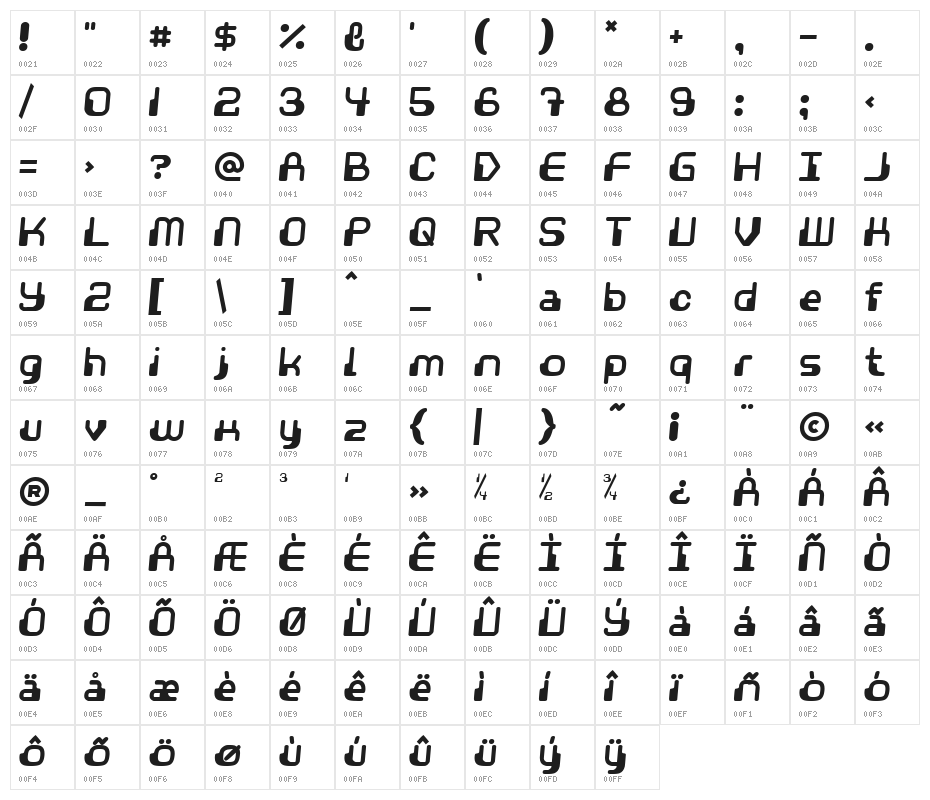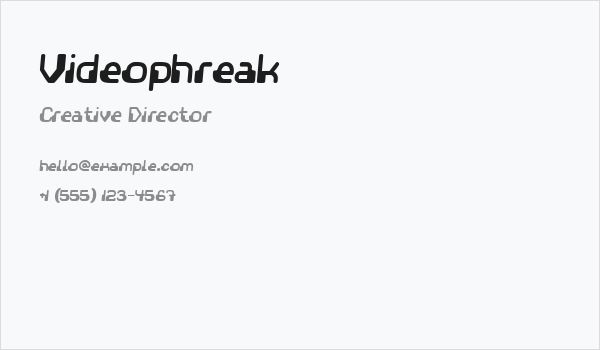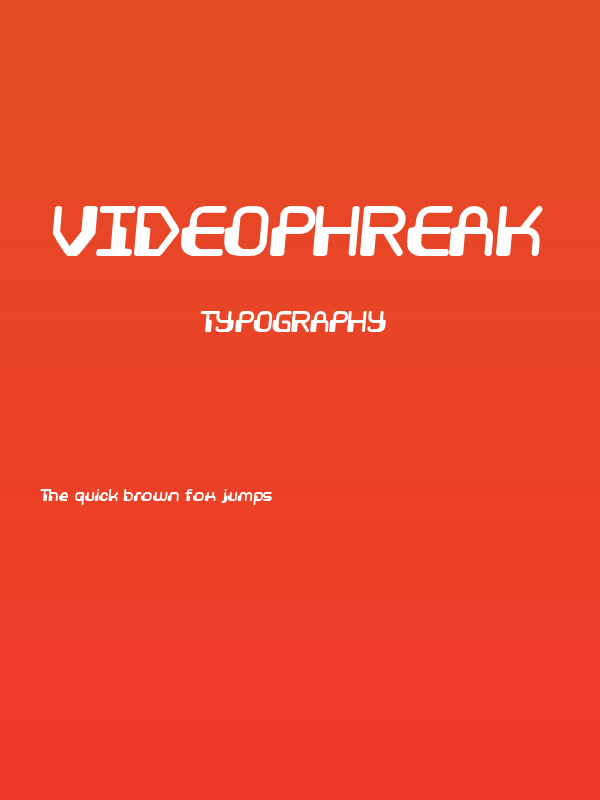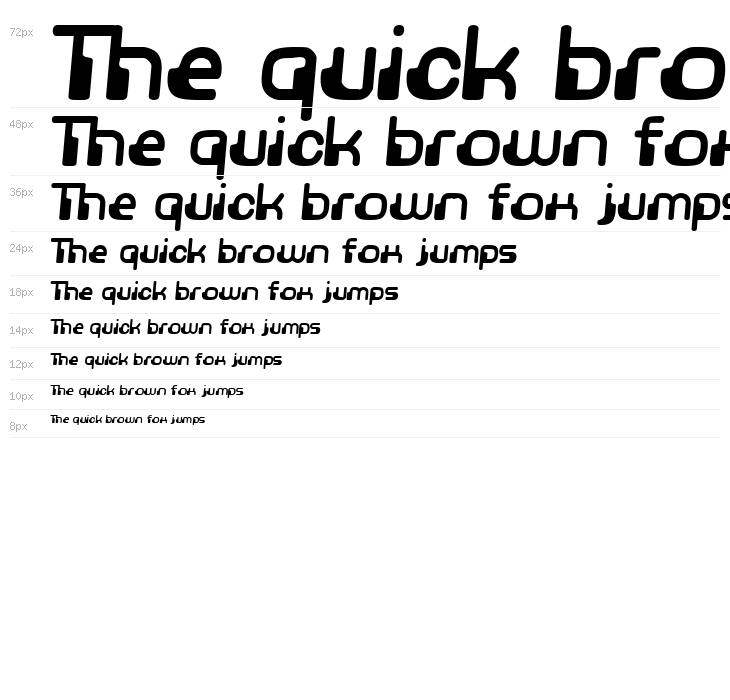
Videophreak Font
Videophreak Description
This font features a futuristic and geometric design, characterized by its bold and rounded letterforms. The uppercase letters have a distinct angularity, with some characters incorporating unique cutouts and shapes, such as the 'E' and 'F'. The lowercase letters maintain a consistent style, with smooth curves and a modern aesthetic. Numbers are equally bold and share the same geometric style, making them highly legible. Special characters are designed to match the overall theme, ensuring a cohesive look across all glyphs. This font's unique style makes it ideal for projects that require a modern and tech-inspired appearance.
| Proposed Projects | Ideal for tech branding, video game titles, futuristic posters, and digital interfaces. |